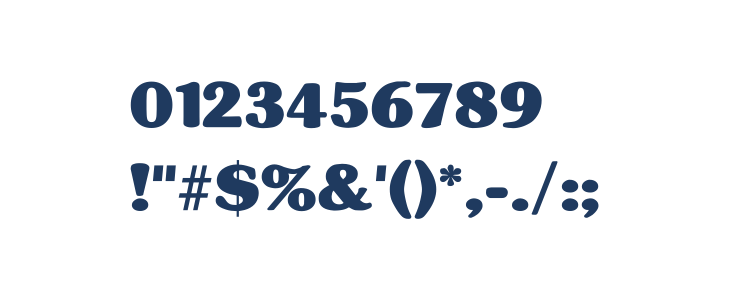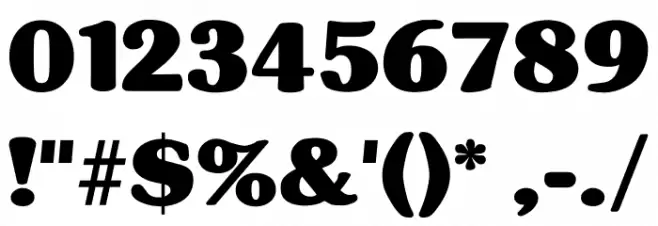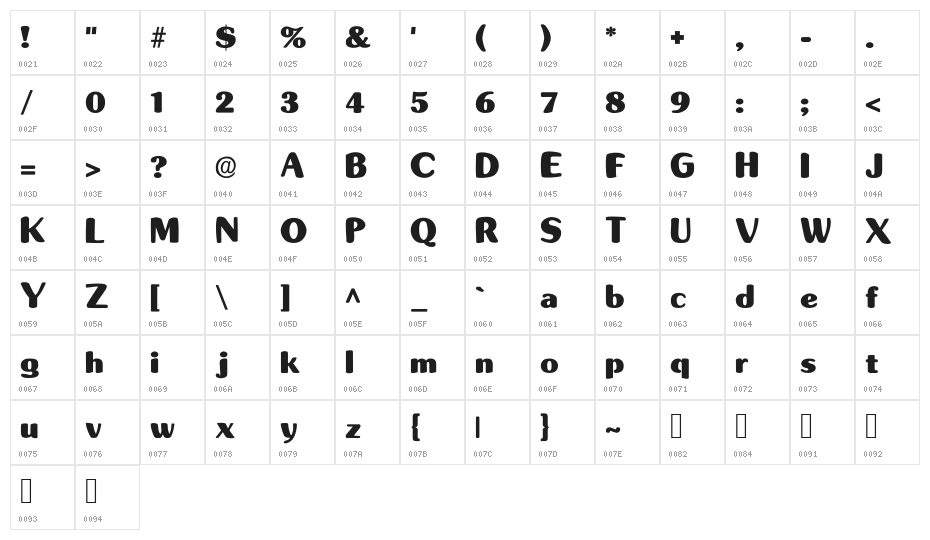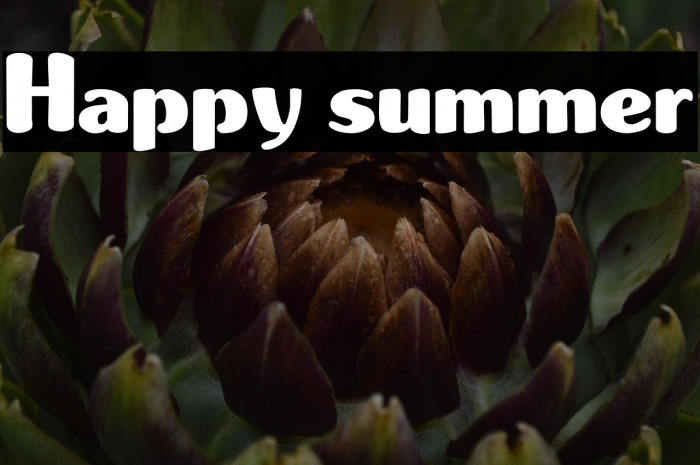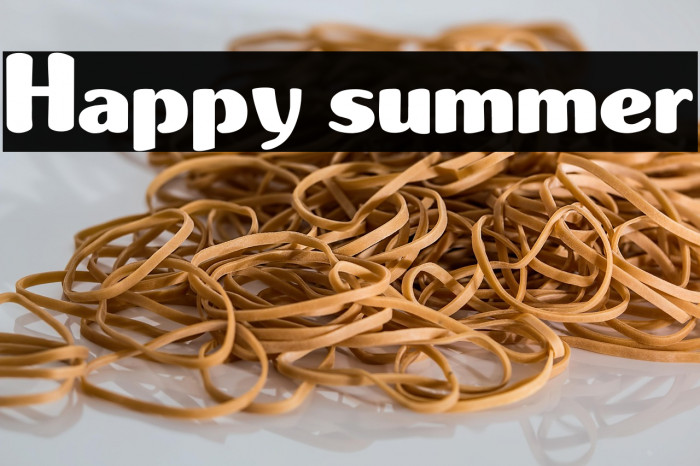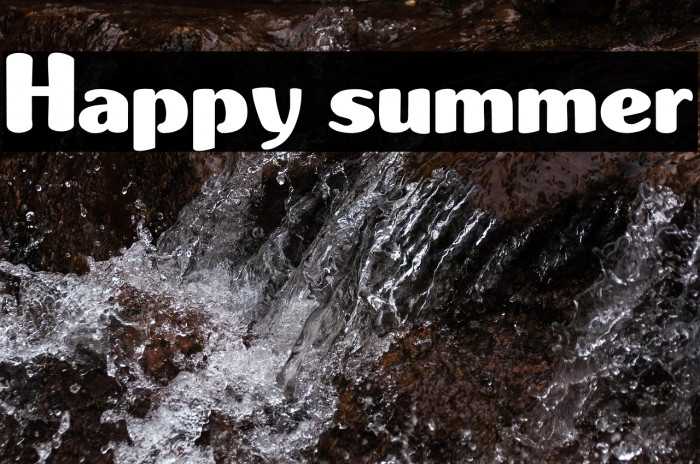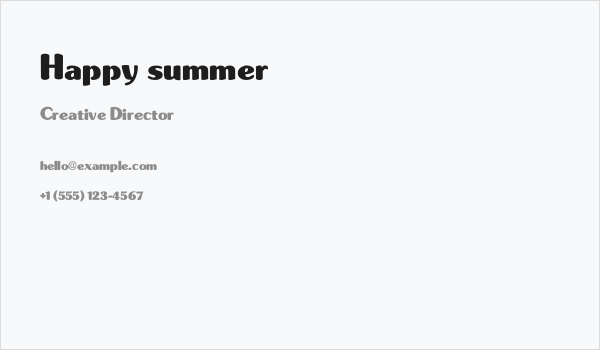
Happy summer Font
Happy summer Description
This font features a playful and bold design with rounded edges and a friendly appearance. The characters are thick and slightly condensed, giving it a strong presence while maintaining a casual and approachable feel. The uppercase and lowercase letters are well-balanced, with consistent stroke widths that contribute to its cohesive look. The numerals and special characters are designed to match the overall style, ensuring versatility across various applications. Its boldness and rounded forms make it ideal for projects that require a fun and engaging visual impact.
| Overall Style | Playful, Casual |
| Proposed Projects | Ideal for children's books, playful branding, event invitations, and casual posters. |